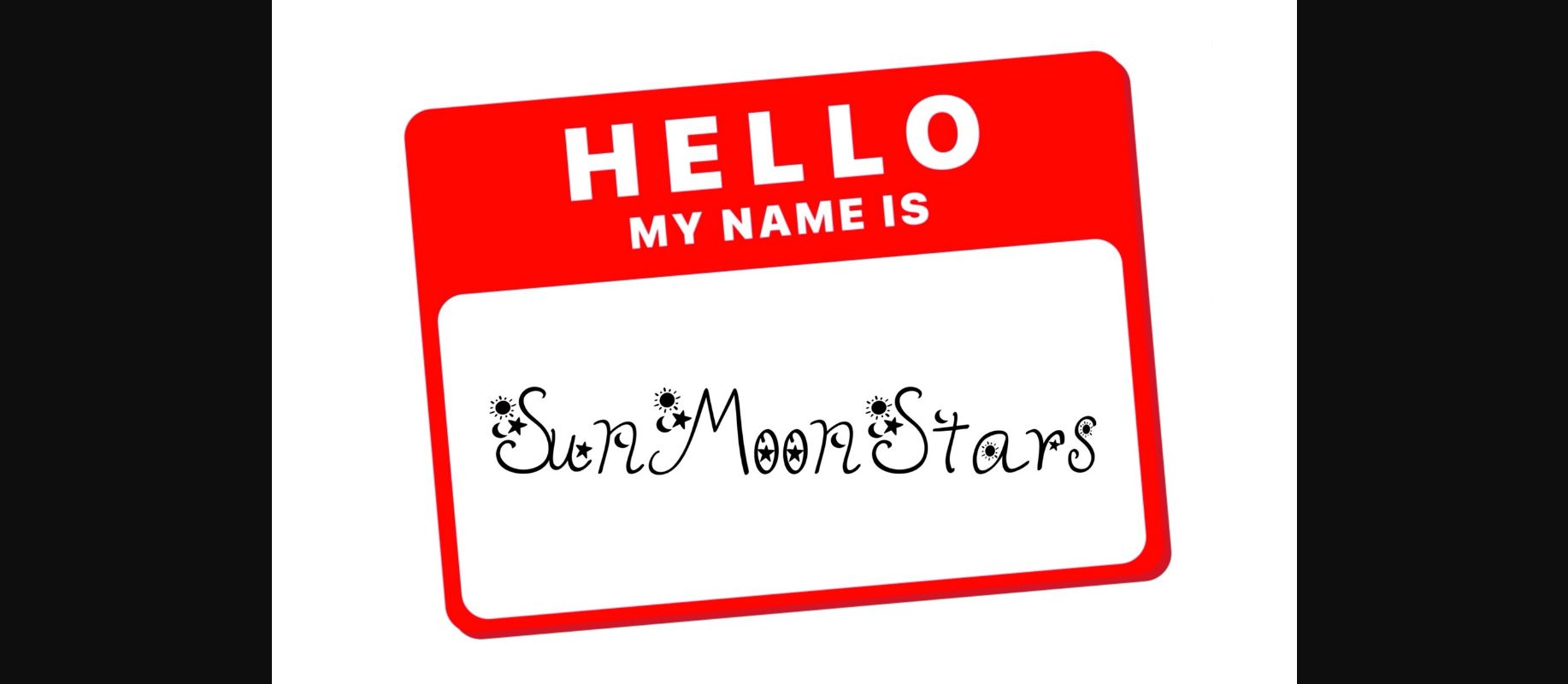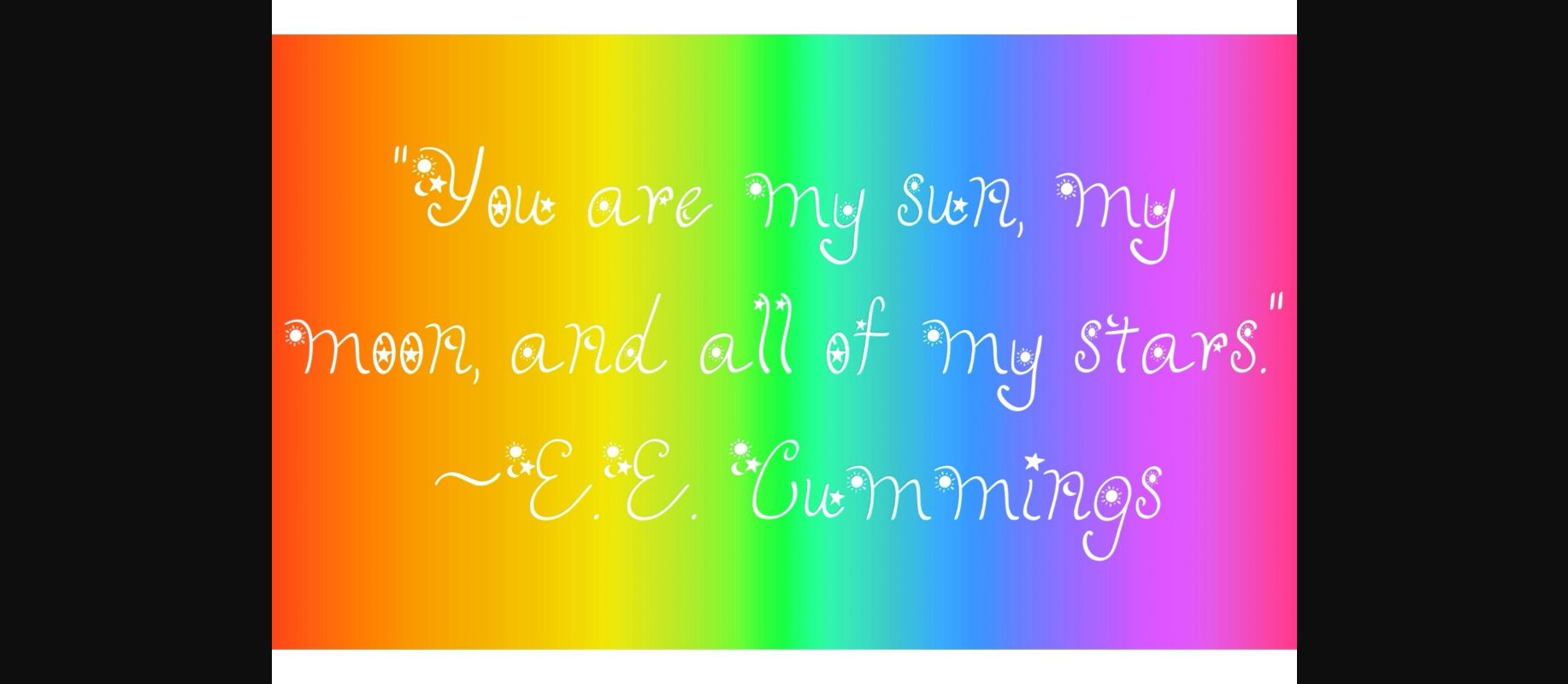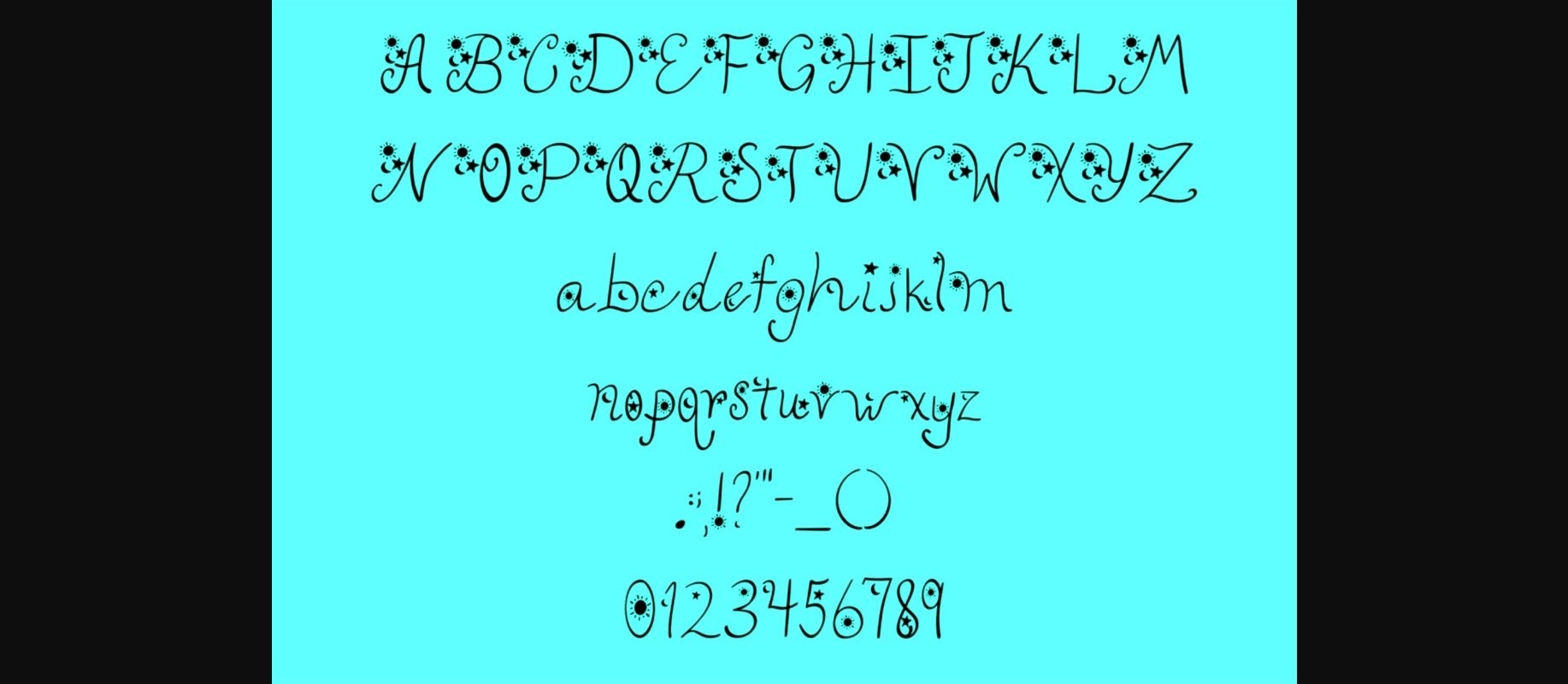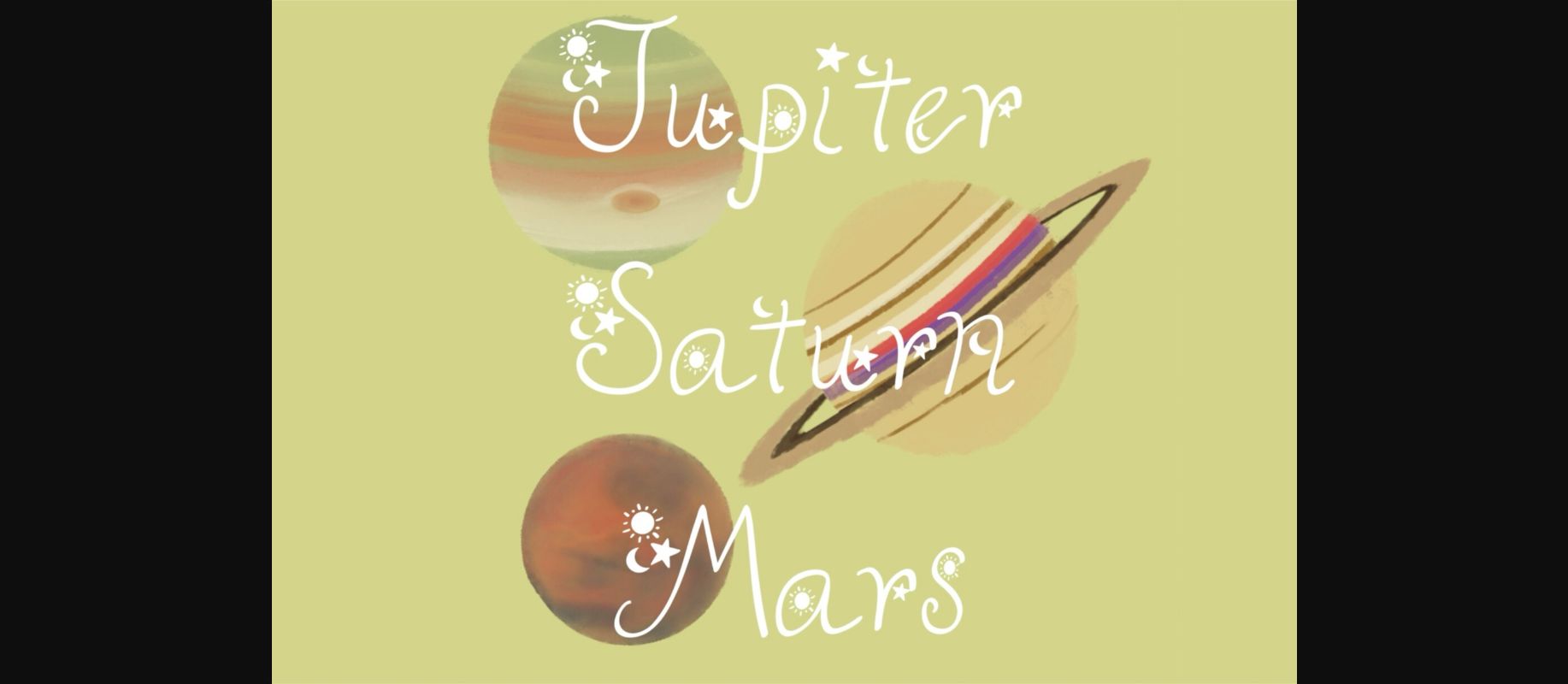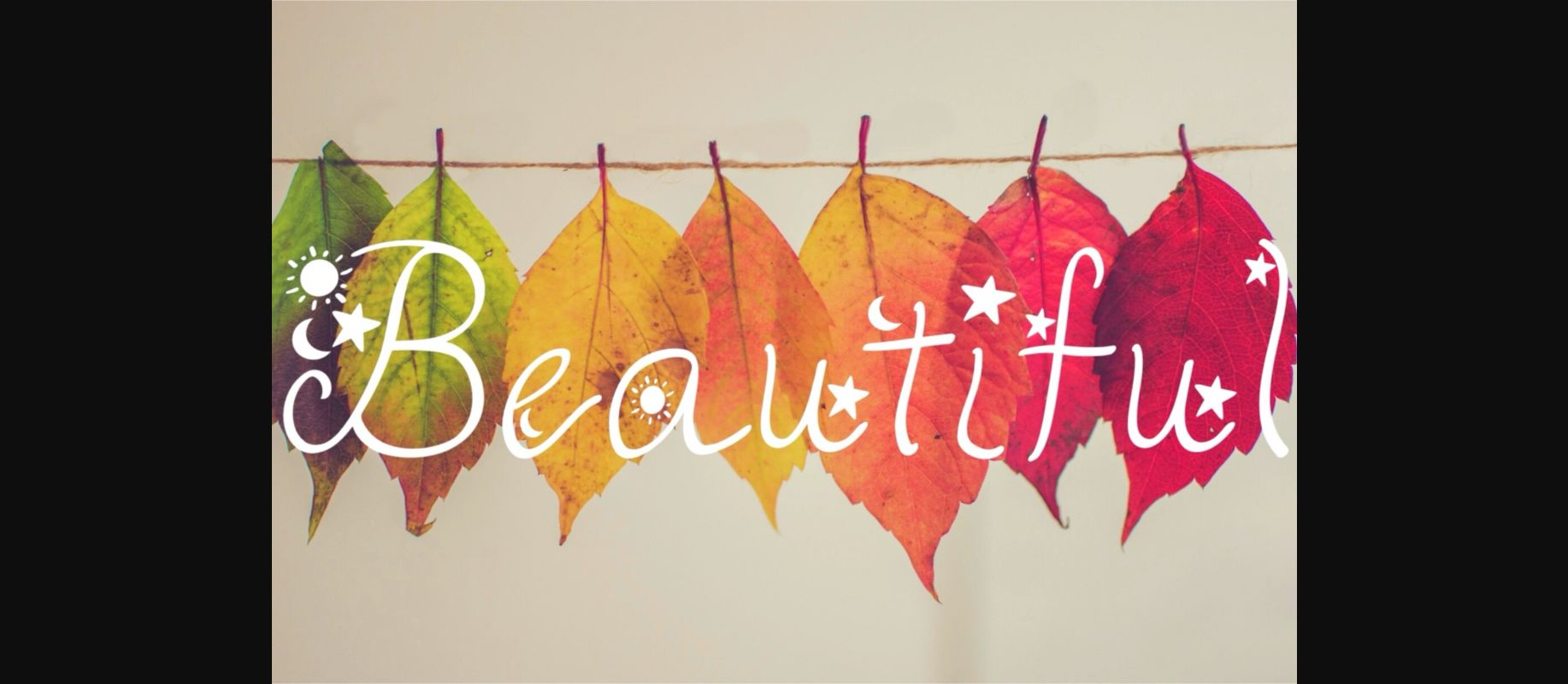
Sun Moon Stars Font
About Sun Moon Stars Font
Immerse yourself in a cosmic journey with this uniquely charming font, inspired by the fascination of astrology, tarot, and the zodiac. Aptly adorned with the sun, moon, and stars, this design dares to sprinkle a dash of the universe’s wonders into your celestial creations. Every letter penned in this font promises to radiate joy and infuse a touch of heavenly magic into your typographic art.